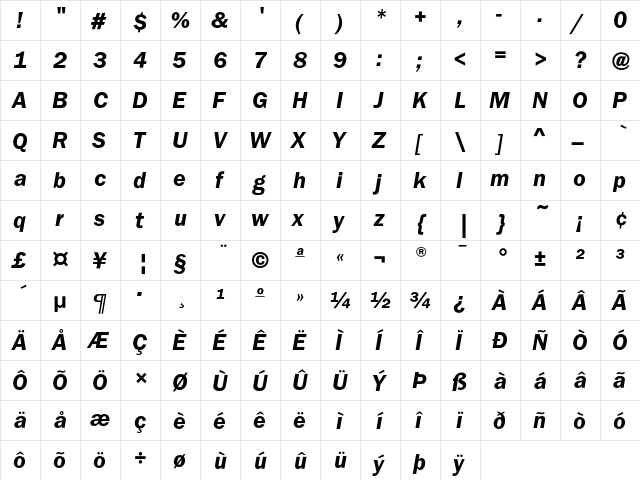
FranklinGothicEF DemiItalic Font Preview
FranklinGothicEF DemiItalic
Design Context for FranklinGothicEF Typeface
FranklinGothicEF has the quiet confidence of well-executed sans-serif typography: versatile, unobtrusive, and dependable at any size. Its italic angle brings a sense of urgency and motion to the letterforms.
Font Pairing: Works well alongside a characterful serif or display font that can carry the expressive load while FranklinGothicEF handles the functional copy.
Pro Tip: Use FranklinGothicEF for UI labels, navigation, and short-form body copy where clean legibility is the priority.